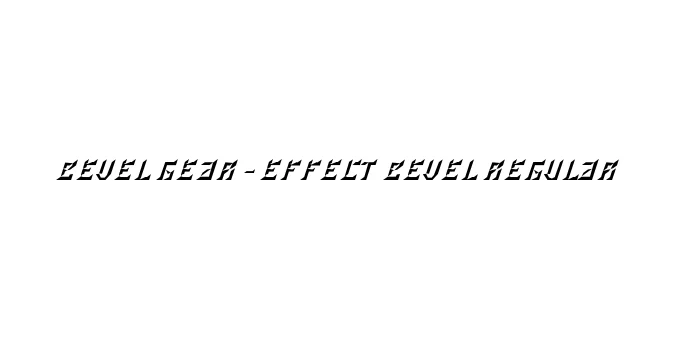
Bevel Gear - Effect bevel Regular
Designed by Nick Curtis
| Category | Display / Decorative |
| Designer | Nick Curtis |
Bevel Gear - Effect bevel Regular is a powerful and commanding display typeface inspired by the heavy, chiseled aesthetics of mid-century industrial machinery and metal signage. Its design features a strong three-dimensional bevel effect that provides a tactile, embossed look, making it an excellent choice for designers looking to replicate the feel of vintage craftsmanship and mechanical strength.
The font is characterized by its thick, blocky letterforms and sharp interior lines that create the illusion of depth. Because of its bold visual weight, it is most effective when used at large sizes for headlines, logos, and title cards where readability and impact are paramount. It serves as a bridge between classic retro typography and modern industrial design.
Bevel Gear - Effect bevel Regular Best Uses
Ideal for creating strong, masculine, or industrial-themed logos.
Perfect for large-format prints that require a vintage or historical aesthetic.
Effective for signage designs that need a chiseled or metallic appearance.
Excellent for high-impact titles on websites or in editorial layouts.